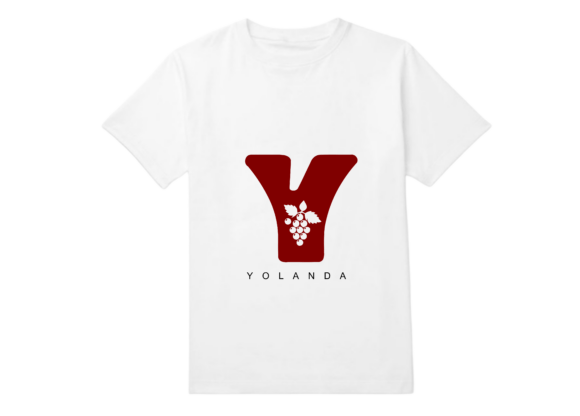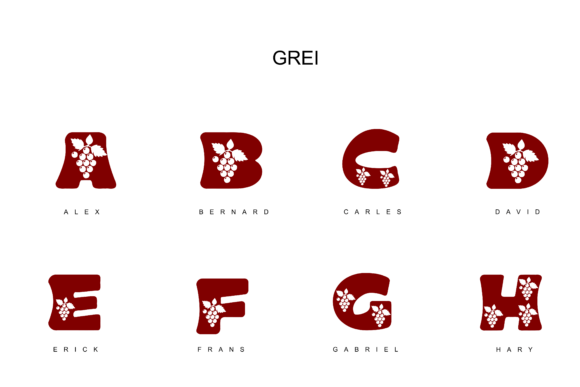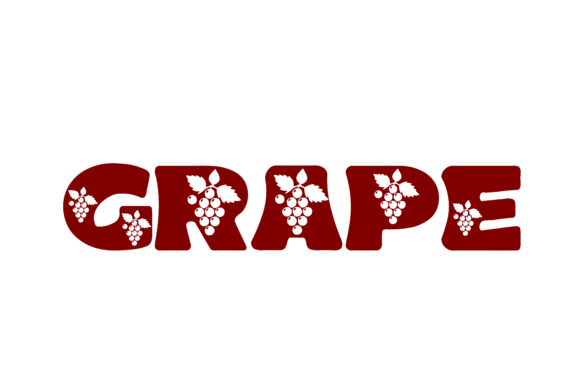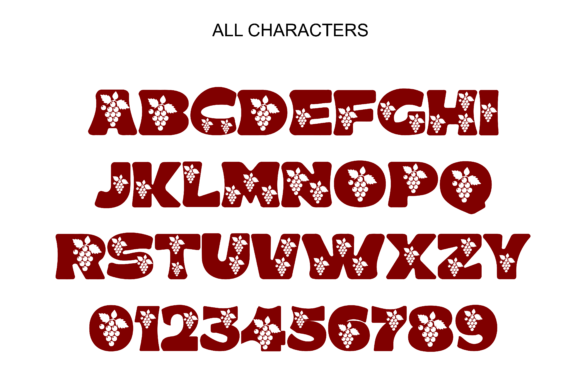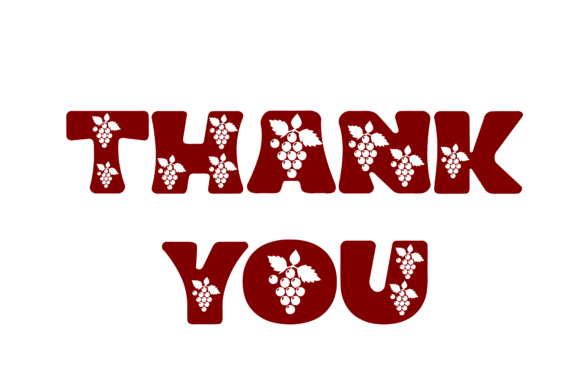
Unleashing Creativity with Grei Font: A Whimsical Journey for Designers and Crafters
Welcome to the enchanting realm of Grei, a font that marvelously mirrors the wonder and creativity bursting from a child’s mind. Grei is a thrilling homage to young inventiveness, delicately merging meticulously crafted glyphs with lively letters in a captivating dance of characters. This extraordinary font is designed to inspire designers and crafters to push the boundaries of their creativity, and we’re excited to dive into its unique features and applications.
The Birth of Grei: A Tribute to Childhood Imagination
Grei is more than just a font – it’s an experience. Its creator carefully crafted each detail to reflect the boundless imagination and curiosity of children. The result is a typography that exudes playfulness, energy, and a sense of adventure. Every glyph, every letter, and every ligature in Grei is a testament to the magic of childhood creativity.
Design Characteristics: A Symphony of Shapes and Lines
One of the standout features of Grei is its unique blend of traditional and modern design elements. The font boasts:
• Meticulously crafted glyphs with intricate details
• Lively letters that seem to dance on the page
• A captivating dance of characters that creates a sense of movement
These characteristics make Grei an ideal choice for designers and crafters looking to add a touch of whimsy and personality to their work.
Applications of Grei: Where Imagination Knows No Bounds
Grei’s versatility is one of its most compelling features. This font can be used in a wide range of applications, including:
• Dynamic learning tools: Add a spark of creativity to educational materials and make learning fun!
• Mesmerizing children’s stories: Bring tales to life with Grei’s enchanting typography
• Stimulating brand promotions: Inject your brand with a dose of playfulness and energy
• Artistic endeavors: Use Grei as a scaffold for your creative projects, from illustrations to graphic design
Whether you’re a seasoned designer or a crafter looking to add a personal touch to your work, Grei is the perfect companion for your creative journey.
Why Choose Grei: The Benefits of Using this Unique Font
So, what sets Grei apart from other fonts? Here are just a few reasons why designers and crafters love Grei:
• Distinctive personality: Grei adds a touch of whimsy and creativity to any design
• Flexibility: Use Grei in a variety of applications, from digital to print
• Attention to detail: Every aspect of Grei is carefully crafted to ensure a unique design experience
• Magnetism and vigor: Grei’s typography is designed to fascinate and resonate with audiences
By incorporating Grei into your design workflow, you’ll be able to create engaging, imaginative, and memorable content that stands out from the crowd.
Getting Started with Grei: Tips and Tricks
Ready to unleash your creativity with Grei? Here are some tips to get you started:
• Play with font sizes, colors, and combinations to find the perfect look for your project
• Don’t be afraid to push the boundaries of Grei’s design – it’s meant to be creative and flexible!
With Grei, the possibilities are endless. Join the journey and discover the irresistible allure of this captivating font!
In conclusion, Grei is more than just a font – it’s a gateway to a world of creativity and imagination. Its unique design characteristics, versatility, and attention to detail make it an unparalleled scaffold for a wide spectrum of artistic endeavors. Whether you’re a designer, crafter, or simply someone looking to add a touch of whimsy to your work, Grei is the perfect choice. So, dive in and let the enchanting realm of Grei inspire your next creative project!